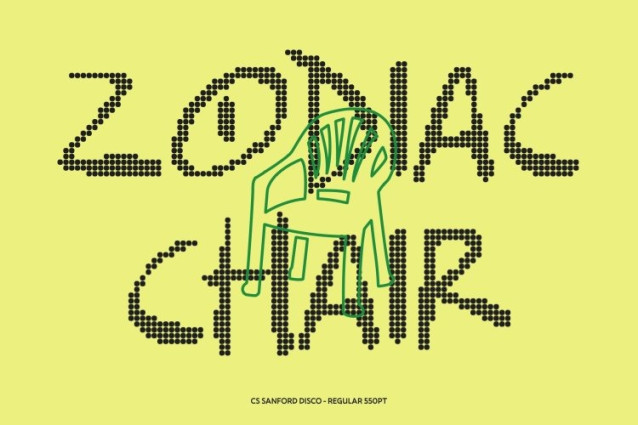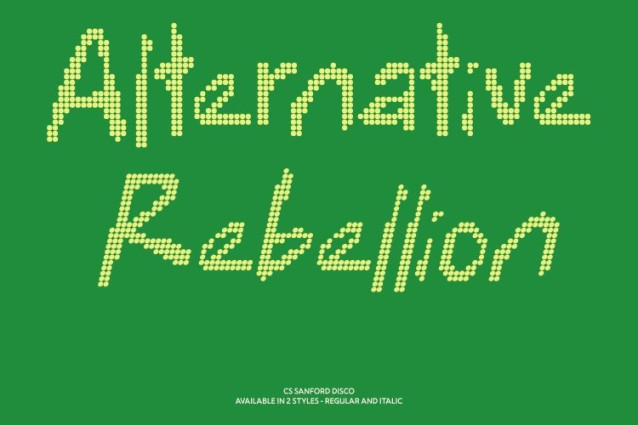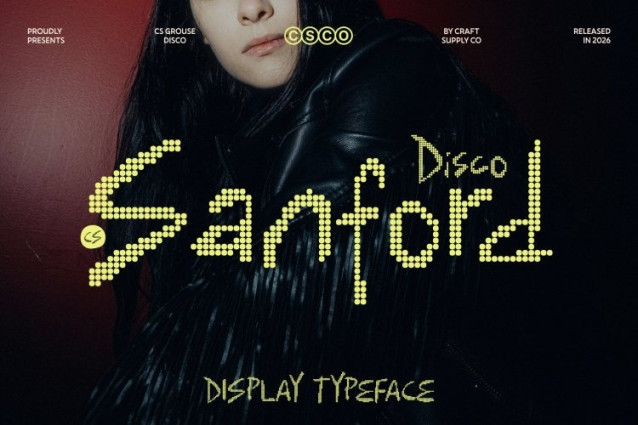
CS Sanford Disco Font
CS Sanford Disco Font – This font reimagines the expressive ink handwritten style as a lively dotted display font inspired by the vibrant energy of disco lights. Each stroke is constructed from small circular dots, creating a sparkling texture that brings movement and rhythm to the natural handwritten flow. This dotted structure keeps the authenticity of handwritten expression while adding a playful and festive visual effect.
Natural Flow with Rhythmic Dot Patterns
The casual movement and organic rhythm of the original handwriting remain intact. Through carefully arranged dots, each letter maintains its relaxed personality while gaining a shimmering appearance that feels energetic and dynamic. The dotted formation enhances the quirky character of the font, giving it a lively and engaging presence.
Quirky Personality with Cheerful Disco Charm
The rounded dot construction amplifies the font’s playful and slightly irregular look. What was once ink texture becomes a vibrant pattern of dots, giving the typography a cheerful personality that reflects the glamour and excitement of the dance floor while still feeling warm and approachable.
Perfect for Creative and Fun Design Projects
This font works beautifully for posters, branding, packaging, social media graphics, quotes, invitations, and lifestyle visuals. Its dotted handwritten style adds originality and joyful energy, making designs feel expressive, creative, and full of personality.